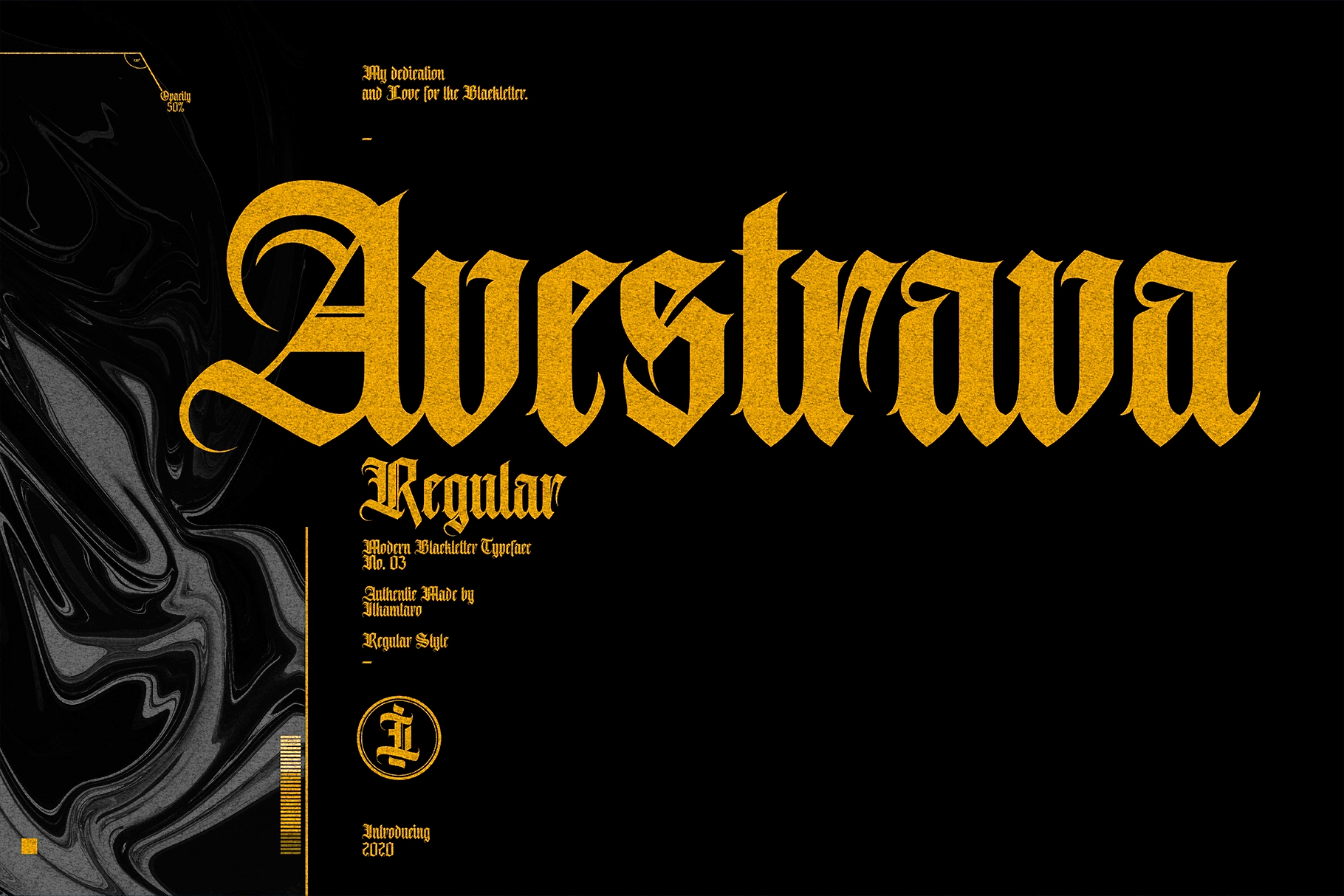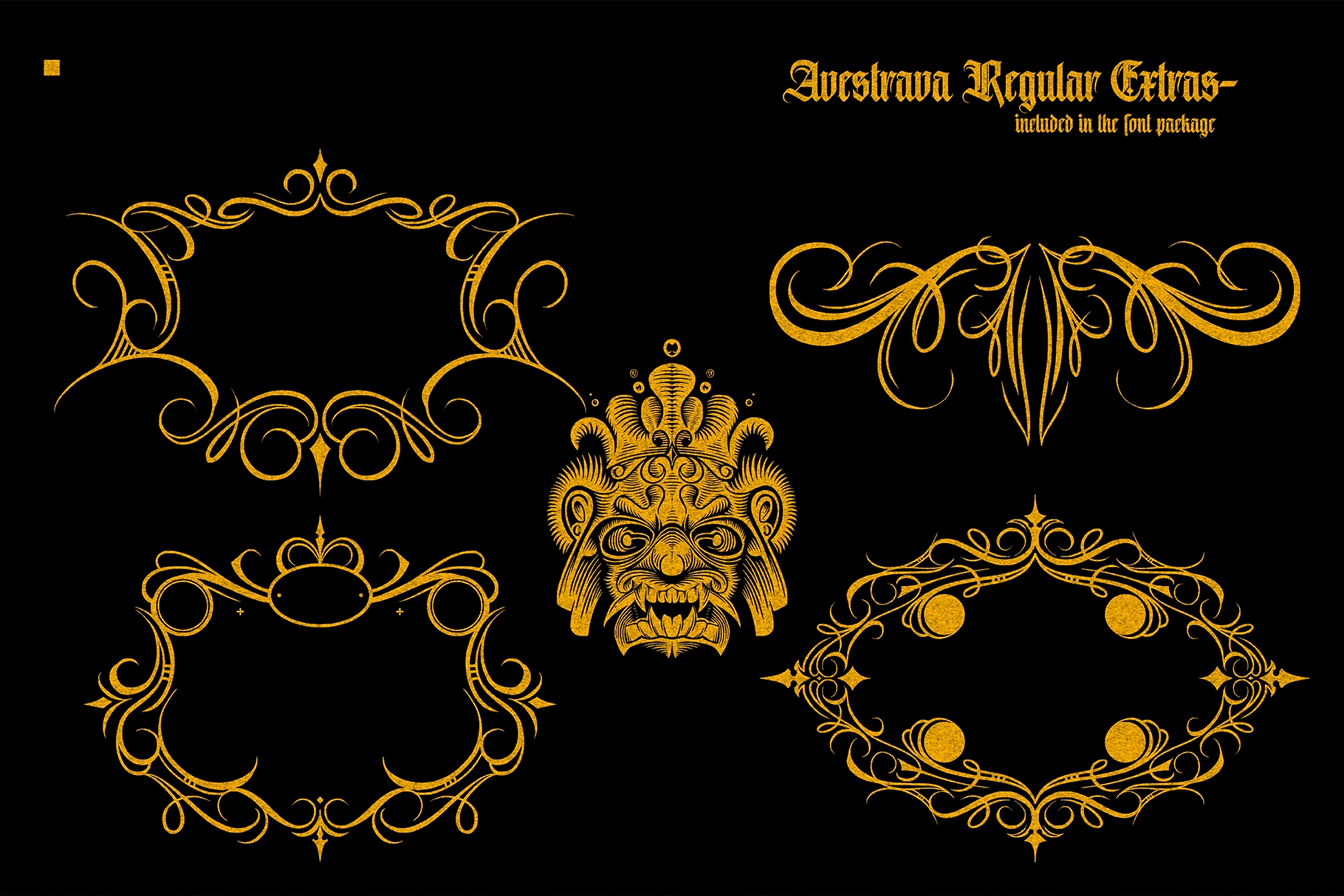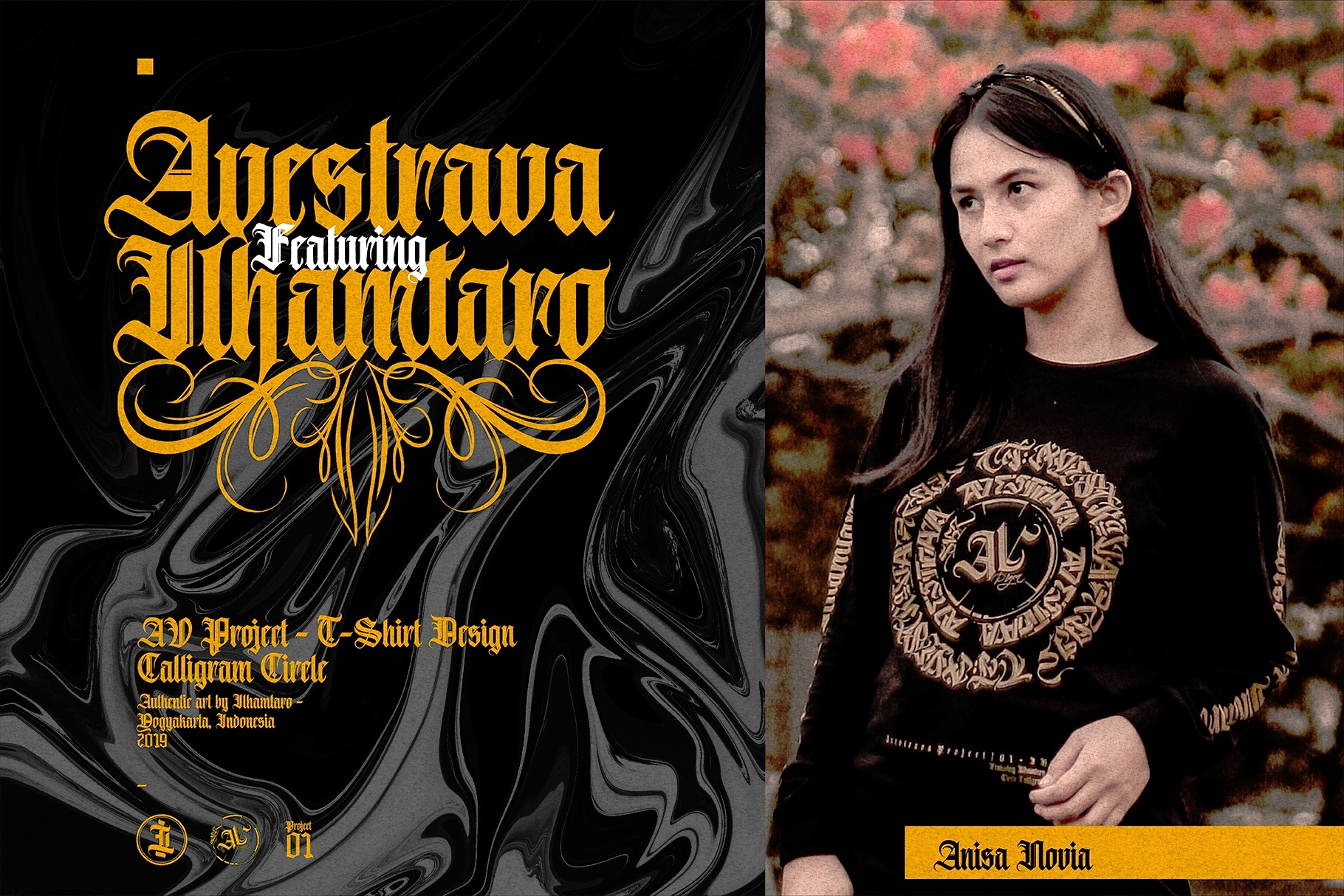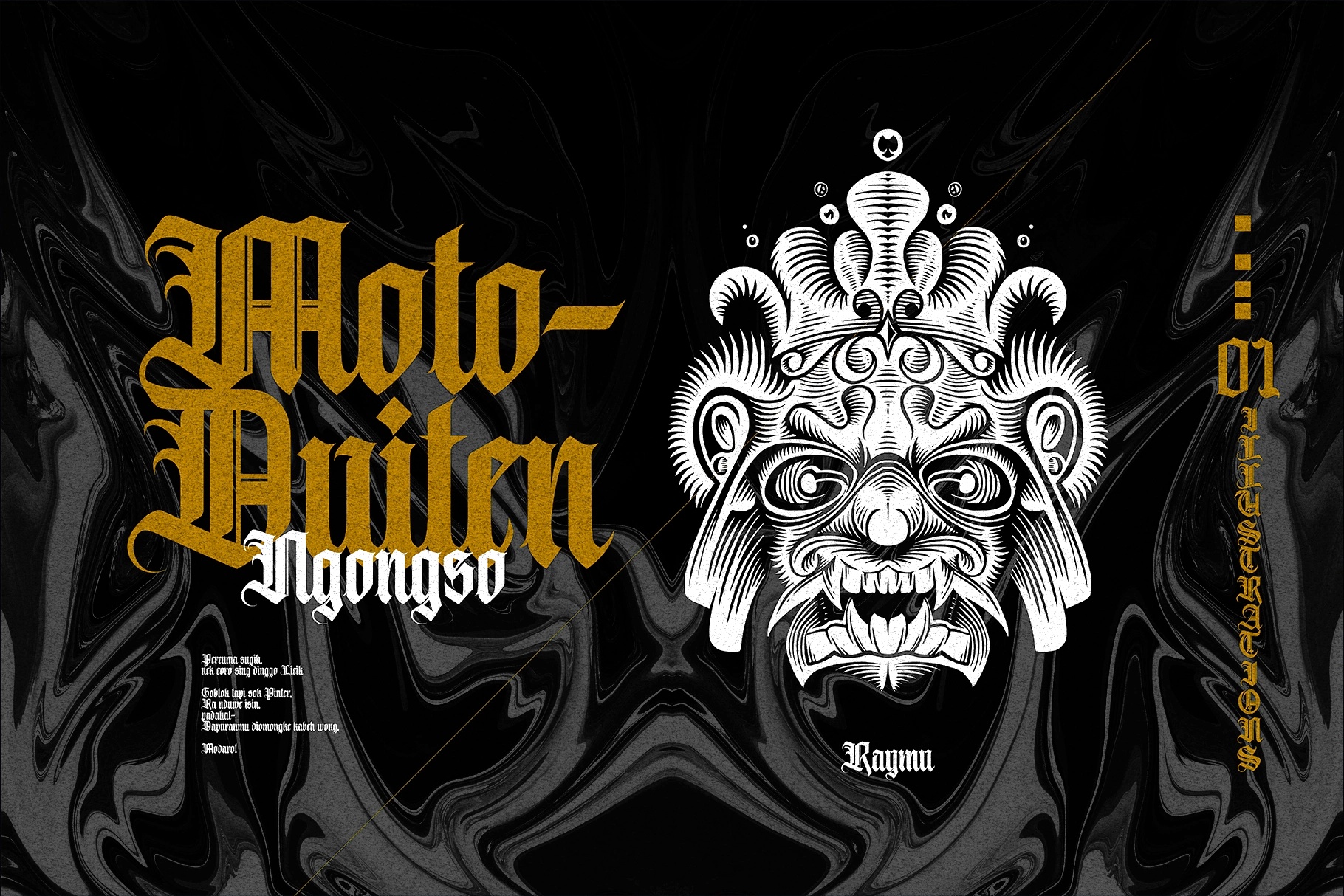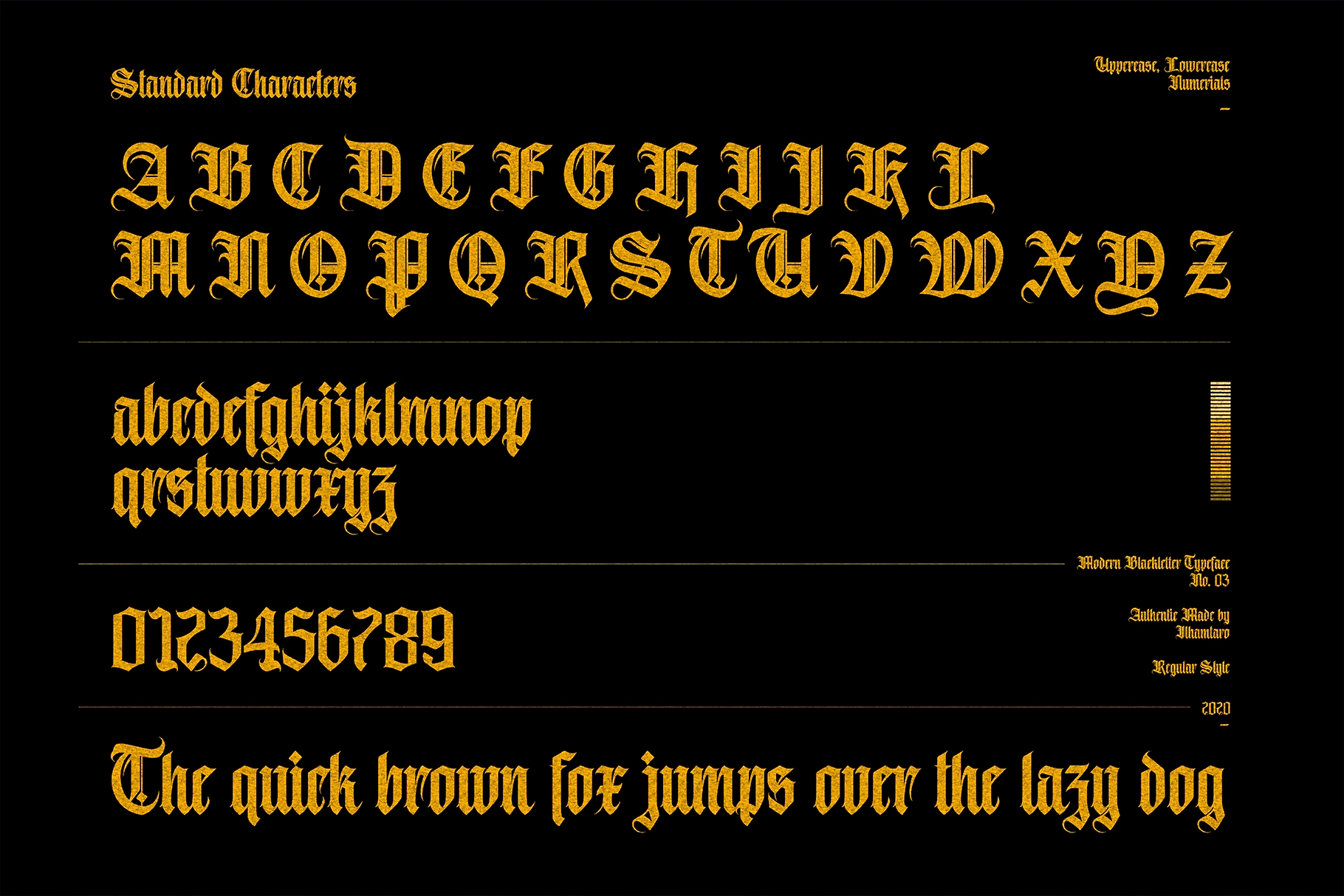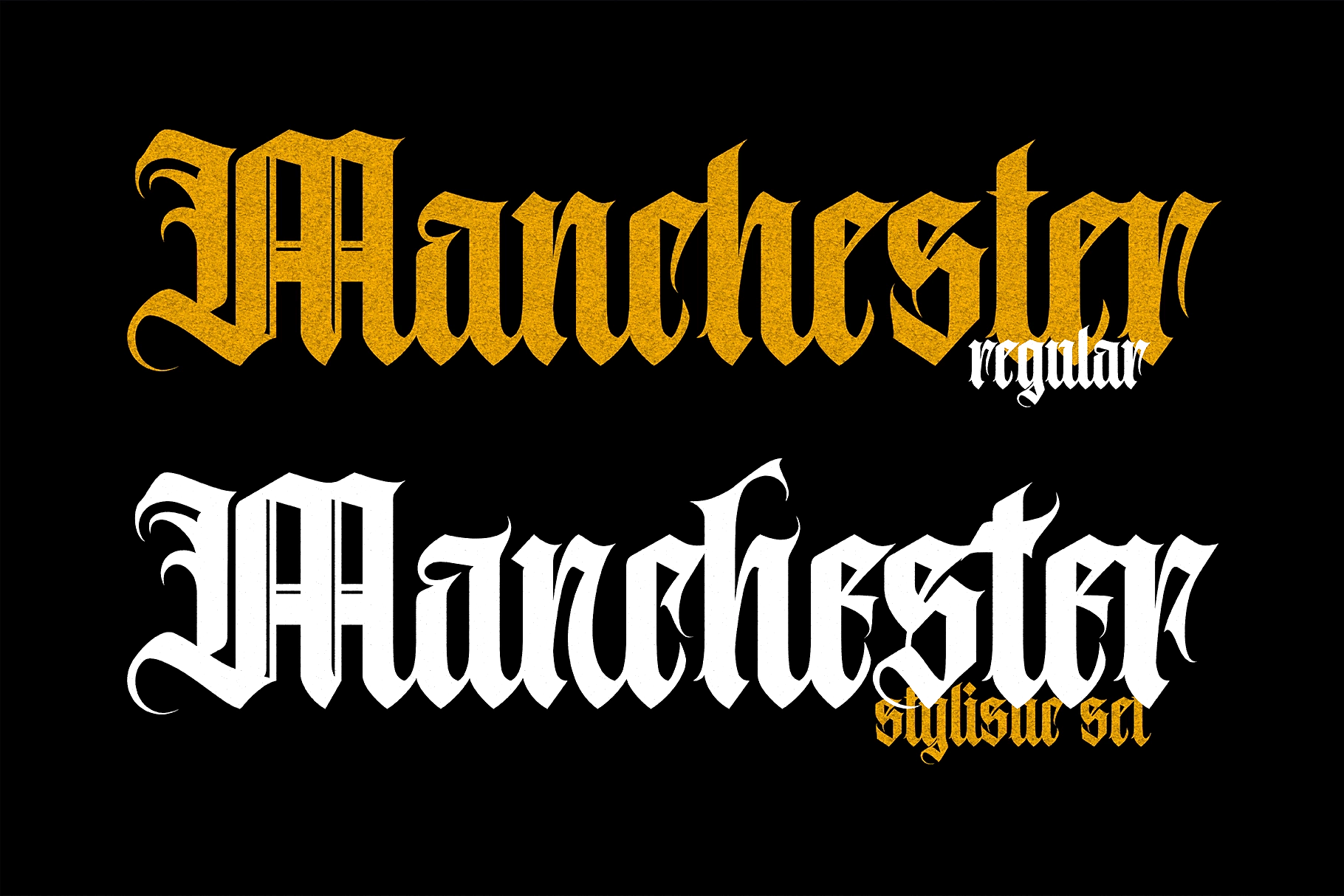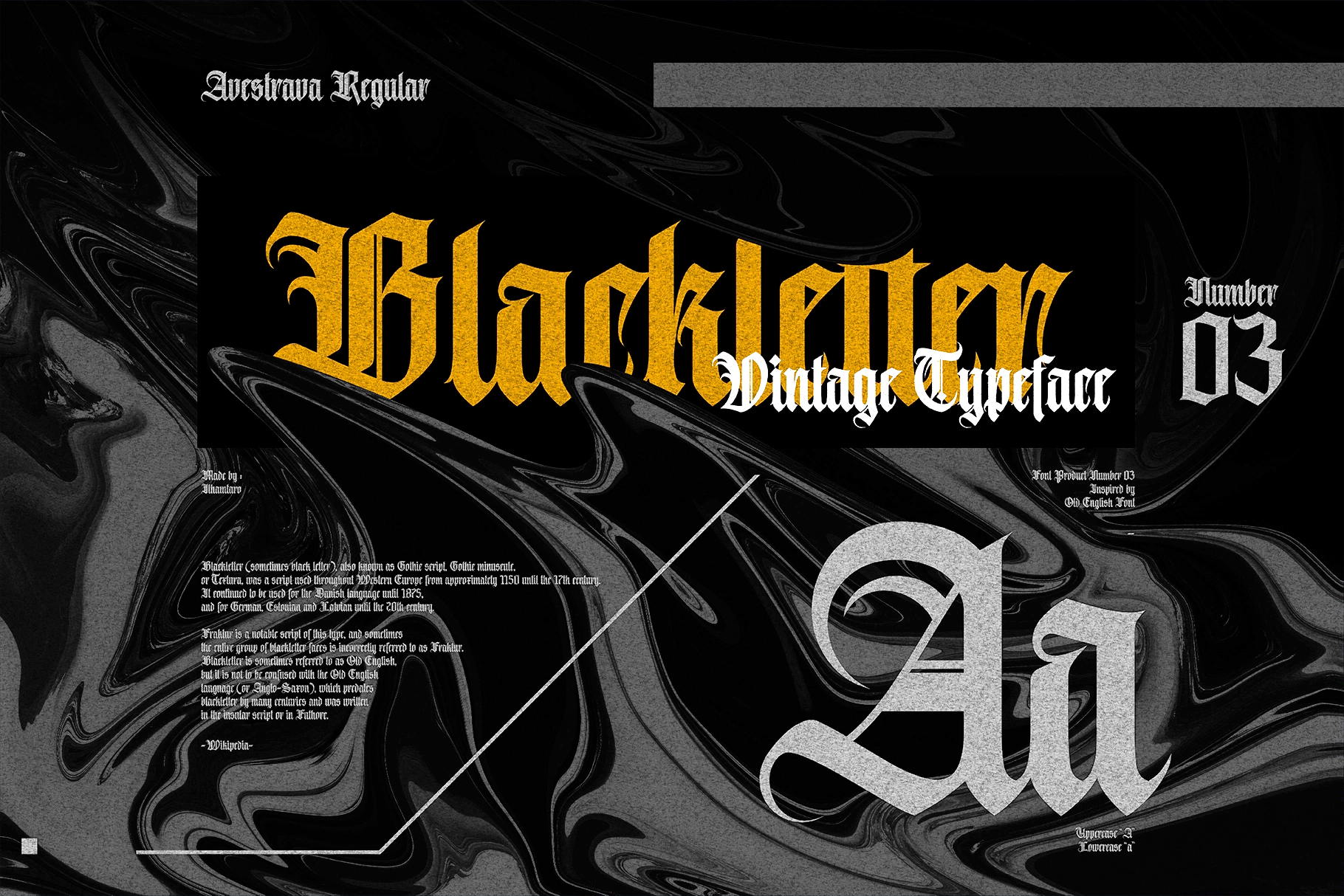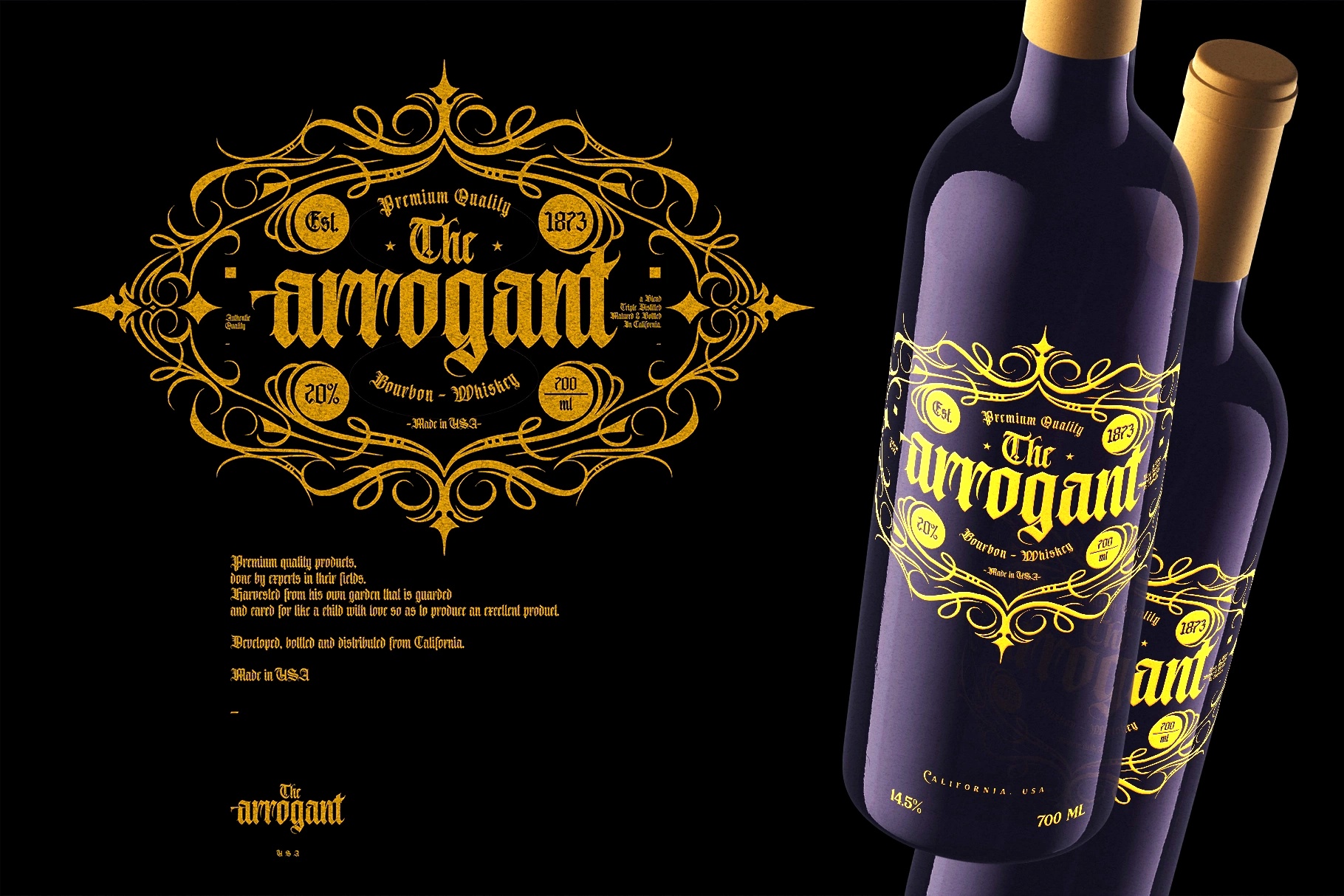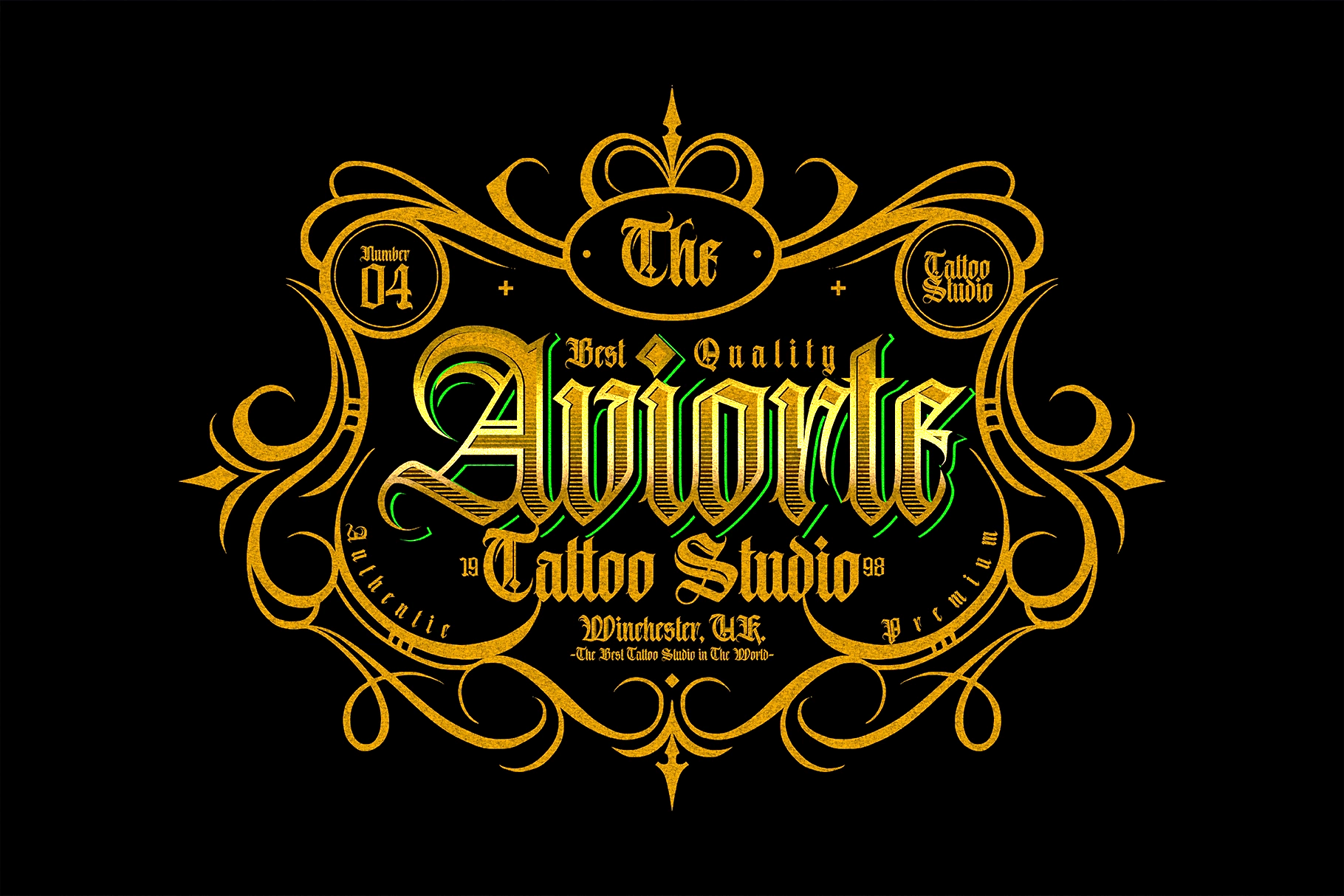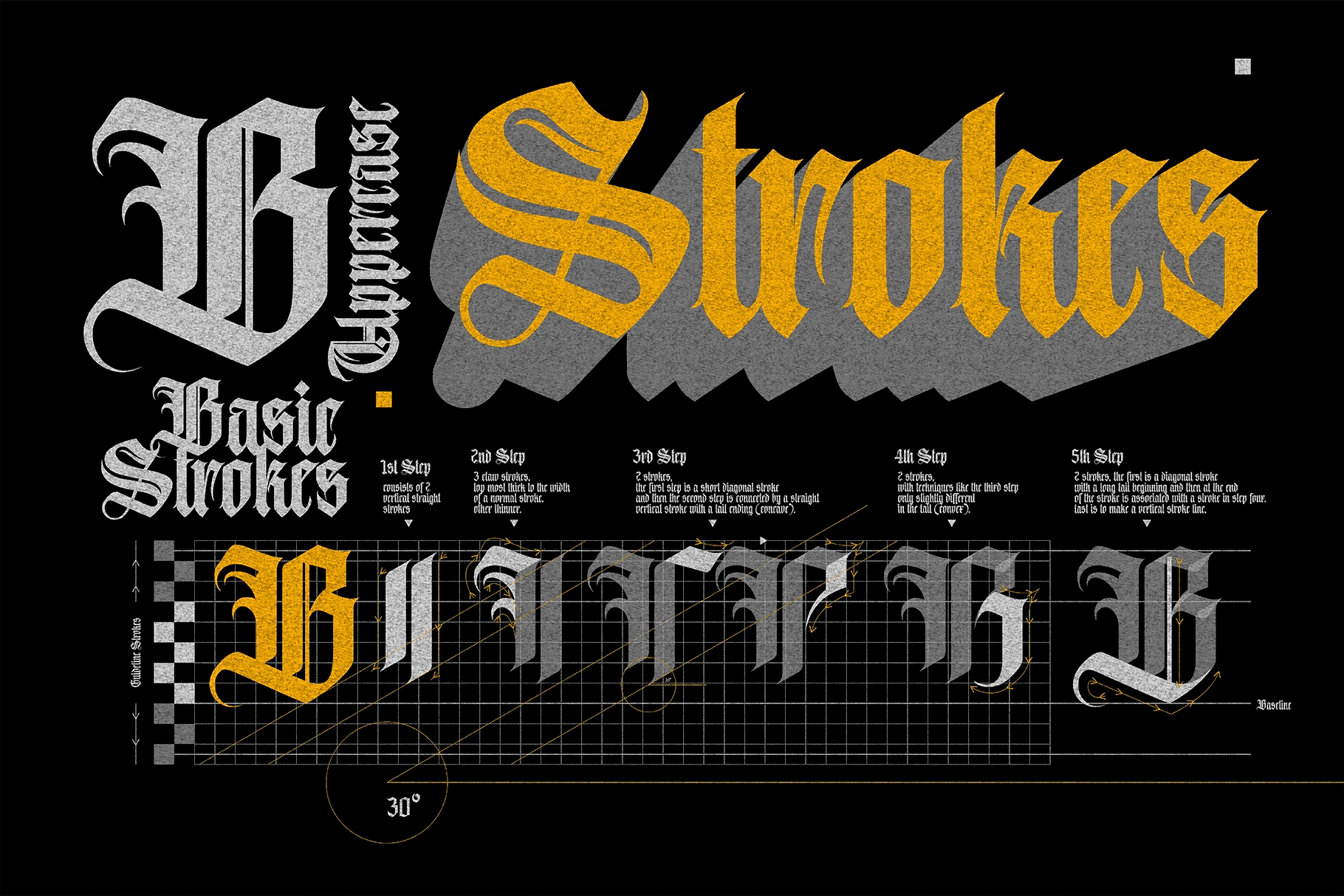
Avestrava - Ornamental Blackletter Font
Avestrava
Heavy blackletter shapes give this font a sharp, ceremonial presence, with dense vertical strokes, angular cuts, and dramatic swashes. The gothic character is strong without losing clarity, so it works well for branding that needs authority, history, and a little menace in the margins.
Avestrava brings Old English influence into bold display typography, supported by ornamental extras for frames, crests, dividers, and decorative layouts. Use it for logotypes, tattoo designs, apparel graphics, liquor labels, band posters, album covers, barbershop branding, motorcycle club merch, event flyers, packaging, badges, and editorial headlines.
- Regular style and Stylistic set
- Ornamental extras included